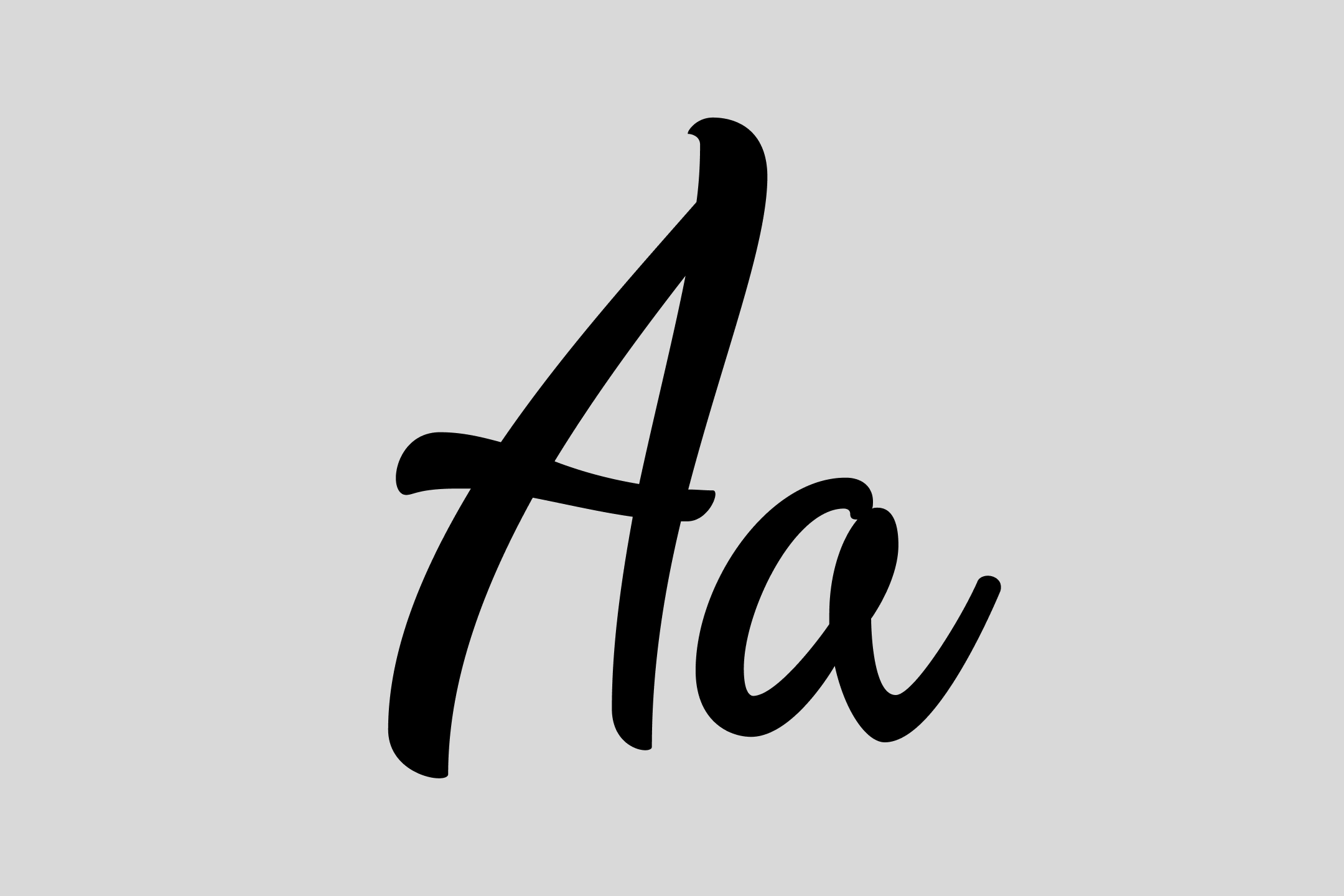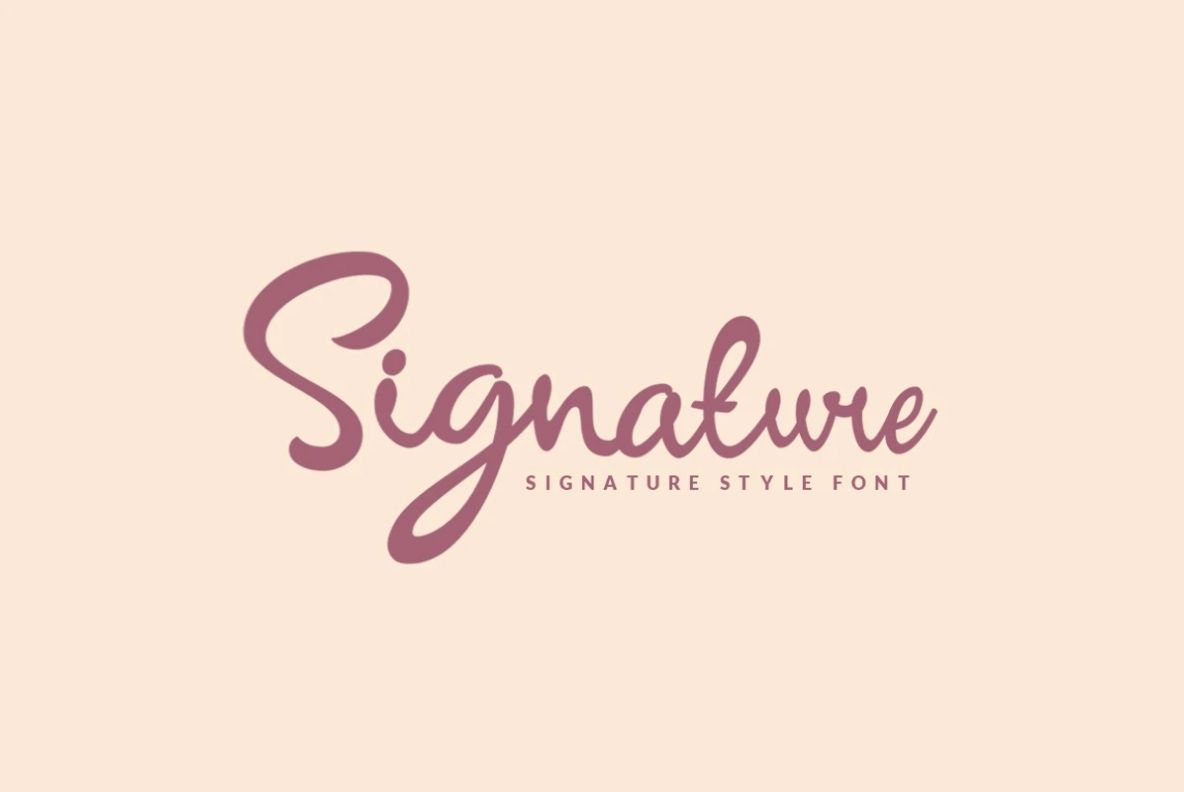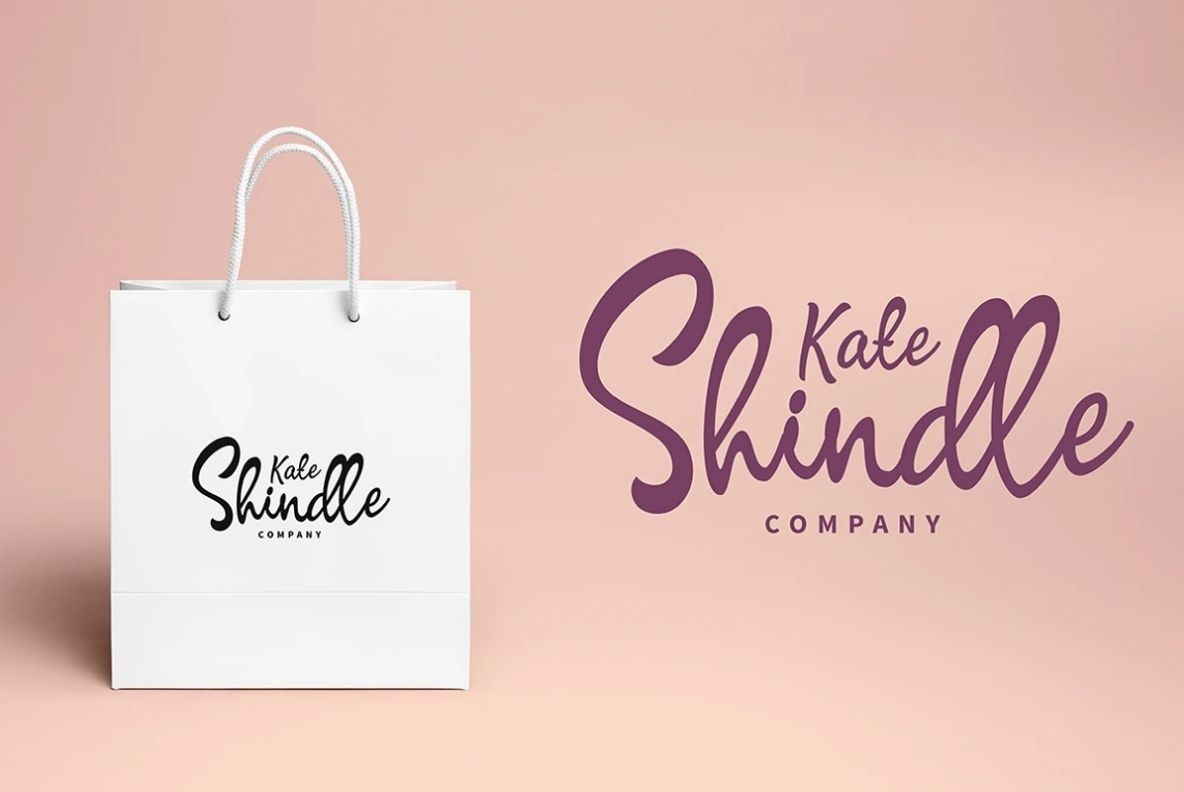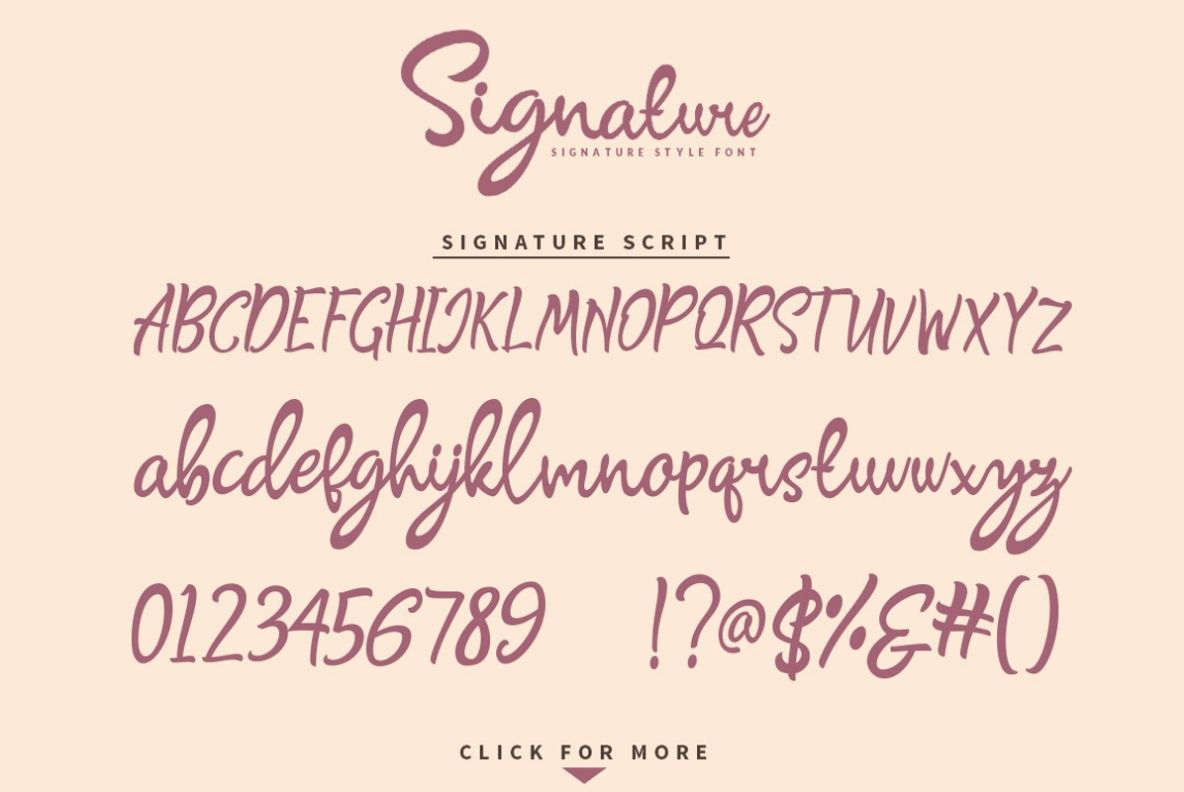
Signature
Signature Script combines elegance with versatility, making it ideal for both professional branding and creative projects.
Elegant Design for Meaningful Brands
Ligatures
fi
fl
Introducing Signature Script, an elegant handwritten typeface crafted to capture the beauty of natural penmanship. With its smooth flowing strokes, graceful letterforms, and authentic signature style, this font brings sophistication and personality to every design.
Whether you’re creating luxury branding, wedding stationery, fashion campaigns, or personal signatures, Signature Script offers a timeless handwritten aesthetic that feels both refined and effortless. Its balanced proportions and clean curves make it highly readable while maintaining an authentic handwritten character.
Designed for creatives, entrepreneurs, and brands that value elegance, Signature Script is the perfect choice for projects that require a personal, stylish, and premium touch.
Perfect For
• Signature Logos
• Luxury Branding
• Wedding Invitations
• Fashion & Beauty Brands
• Cosmetic Packaging
• Social Media Graphics
• Product Packaging
• Photography Watermarks
• Business Cards
• Editorial Design
• Greeting Cards
• Website Headers
Features
• Uppercase & Lowercase
• Numbers & Punctuation
• Beautiful Ligatures
• Stylistic Alternates
• Multilingual Support
Signature Script combines elegance with versatility, making it ideal for both professional branding and creative projects. Whether you’re designing a sophisticated logo or adding a handwritten touch to your typography, this typeface helps your work stand out with effortless style.
Introducing Signature Script, an elegant handwritten typeface crafted to capture the beauty of natural penmanship. With its smooth flowing strokes, graceful letterforms, and authentic signature style, this font brings sophistication and personality to every design.
Whether you’re creating luxury branding, wedding stationery, fashion campaigns, or personal signatures, Signature Script offers a timeless handwritten aesthetic that feels both refined and effortless. Its balanced proportions and clean curves make it highly readable while maintaining an authentic handwritten character.